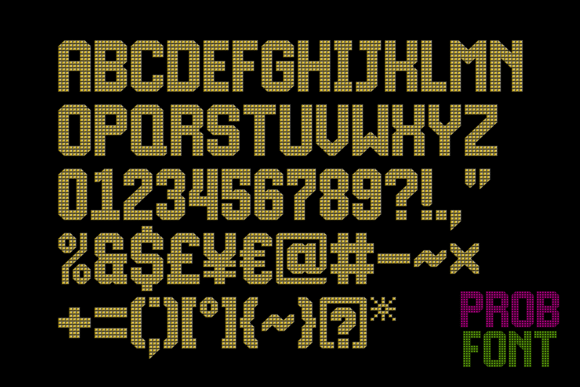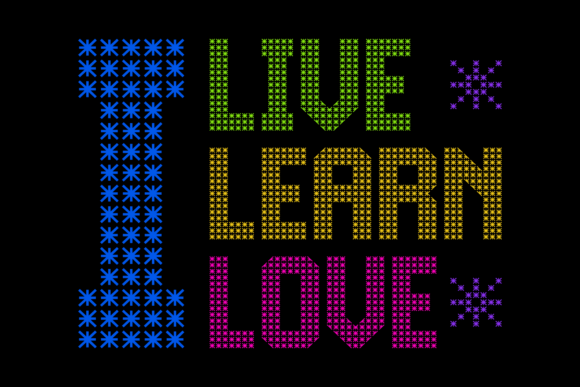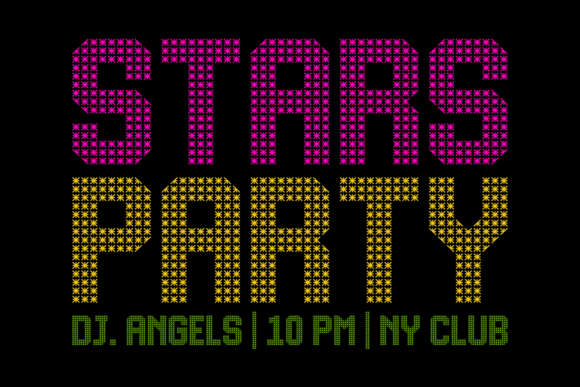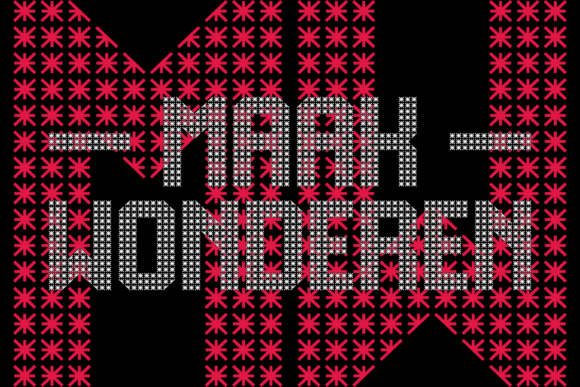
Introduction to Prob Font
“Prob Font” is a captivating fusion of retro, pixel, geometric, and decorative styles, resulting in a truly unique display font.
Its characters are meticulously crafted from a grid of small, star-like shapes, lending a textured and visually engaging effect This intricate construction, combined with consistent and even spacing, ensures “PROB” remains legible despite its playful nature.
Key Features of Prob Font